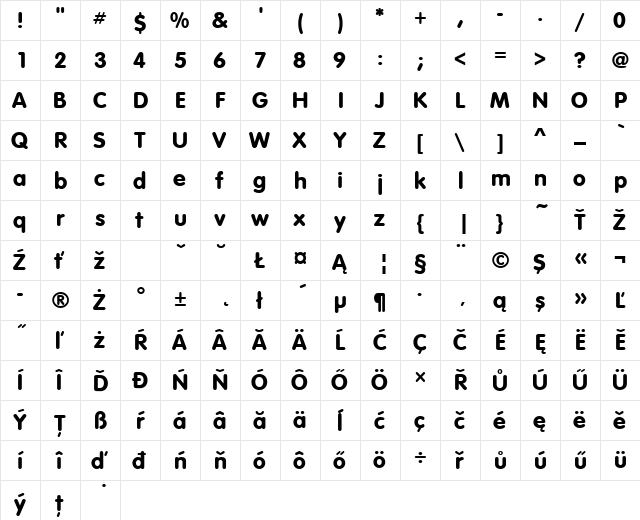
VAGRundschriftDEE Regular
Design Context for VAGRundschriftDEE Typeface
VAGRundschriftDEE is a composed and adaptable typeface that performs quietly and consistently across a wide range of design contexts.